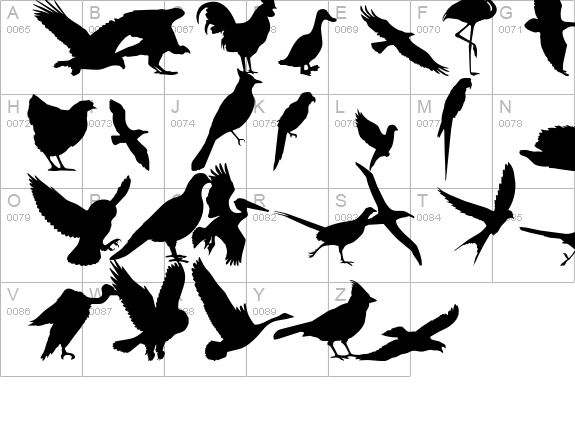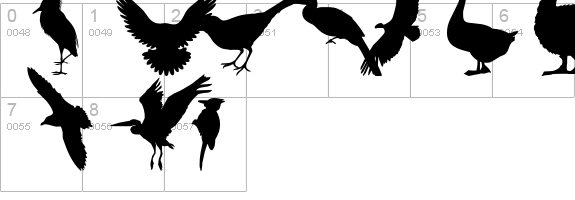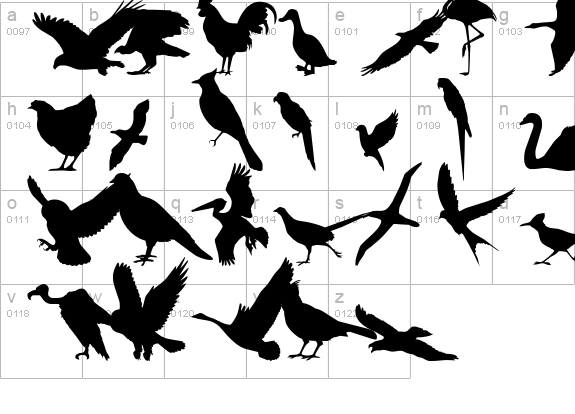
Birds of a Feather Font Details
Birds of a Feather font is a whimsical and charming typeface that captures the essence of nature with its delicate and graceful strokes. Inspired by the beauty of birds in flight, this font brings a sense of freedom and lightness to any design project. Its playful yet elegant style makes it perfect for a wide range of applications, from branding to invitations to social media graphics. What sets Birds of a Feather font apart is not just its unique design, but also the fact that it is completely free to download. Available at FontsMarket.com, this font is a wonderful addition to any designer's toolkit, offering versatility and creativity without any cost. So spread your wings and let Birds of a Feather font take your designs to new heights!